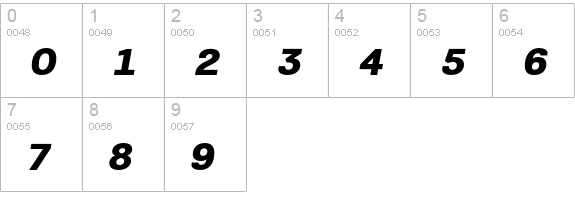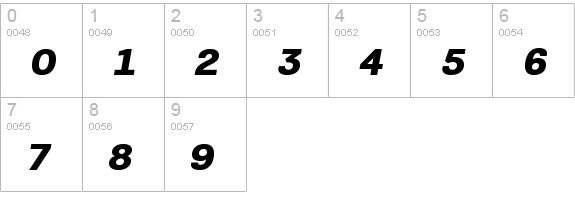
PFEncoreSansPro-BlackItalic Font Details
PFEncoreSansPro-BlackItalic is a bold and striking typeface that exudes modernity and sophistication. With its sleek design and elegant italics, this font is perfect for making a bold statement in any project. The sharp angles and clean lines of PFEncoreSansPro-BlackItalic make it a standout choice for headlines, branding, and editorial designs. The best part is that PFEncoreSansPro-BlackItalic is available for free download at FontsMarket.com. This means you can easily access this stylish font to elevate your designs without any cost. Whether you're a professional designer looking for a new go-to font or a hobbyist wanting to experiment with typography, PFEncoreSansPro-BlackItalic is a versatile and impactful choice that won't break the bank. Download it now and add a touch of bold elegance to your next project!